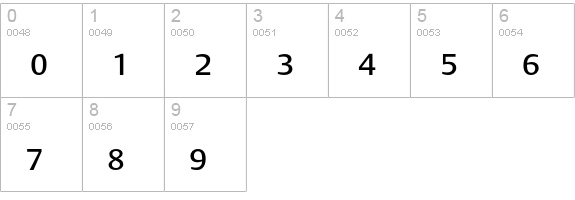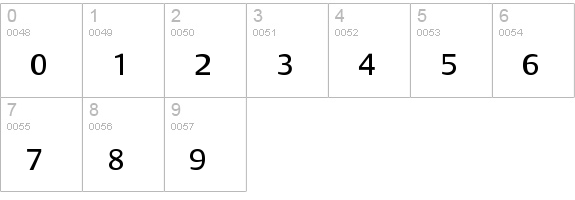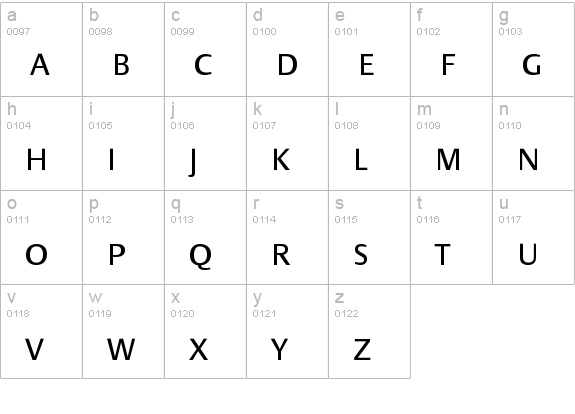
DTLArgoTCaps-Light is a refined, elegant variant in the DTLArgoTCaps typeface family \xE2\x80\x94 well suited to elegant body text, refined sub-headings, and luxury branding.
DTLArgoTCaps-Light is a modern and elegant typeface that exudes sophistication and style. With its clean lines and sleek design, this font is perfect for adding a touch of class to any project. The light weight of the font gives it a delicate and airy appearance, making it ideal for use in branding, invitations, and other design projects where a refined look is desired. Best of all, DTLArgoTCaps-Light is available for free download at FontsMarket.com. This means you can easily access this high-quality font without having to break the bank. Whether you're a professional designer or a casual hobbyist, DTLArgoTCaps-Light is a versatile and stylish font that will elevate your designs to the next level. Download it today and add a touch of sophistication to your projects.